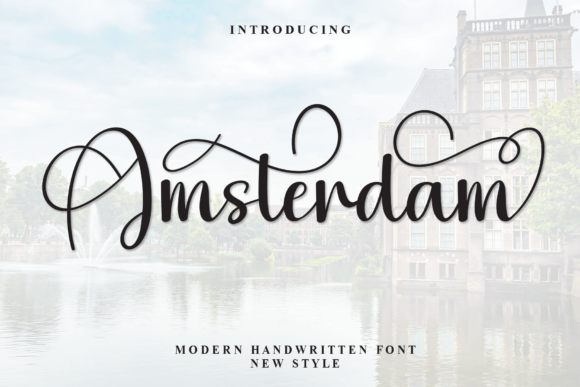
The Amsterdam Font: Elevate Your Designs with a Touch of Elegance
Have you ever been in the middle of a design project, and suddenly, you’re stuck on finding the perfect font? I recall a particularly frustrating experience while working on a wedding invitation design. My client wanted something elegant, yet modern, and I was determined to deliver. After hours of scrolling through font libraries, I stumbled upon the Amsterdam Font. It was love at first sight! ✨ The unique style and versatility of this font have since made it a staple in my design toolkit.
An Honest Review of the Amsterdam Font
- ✨ Unique and Creative: The Amsterdam Font boasts a distinctive style that’s perfect for making your designs stand out.
- ✅ Highly Versatile: Whether it’s for wall displays, wedding invitations, social media posts, logos, advertisements, product packaging, or labels, this font fits seamlessly into any project.
While the Amsterdam Font is incredibly versatile, there are a few minor considerations to keep in mind:
The Amsterdam Font was inspired by the city’s rich history, artistic heritage, and the modern creative vibe that pulses through its streets. The designer aimed to capture the essence of Amsterdam’s blend of old and new, creating a font that’s both timeless and trendy. Whether you’re a professional designer or a creative hobbyist, this font is designed to bring a touch of Amsterdam’s elegance to your projects.